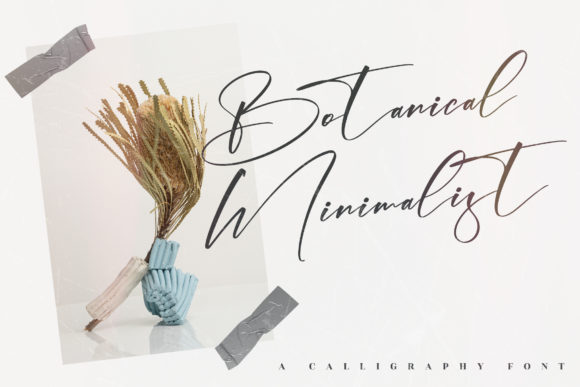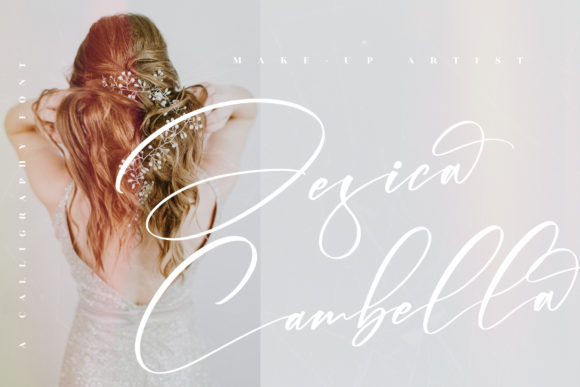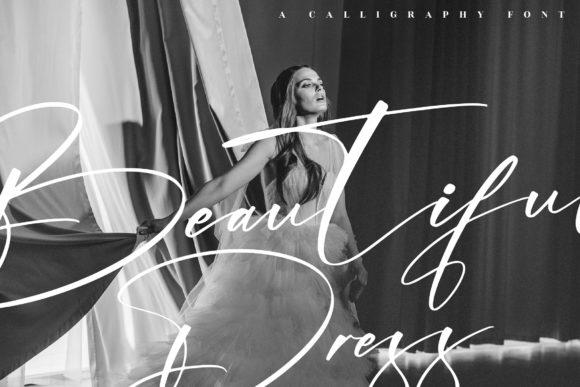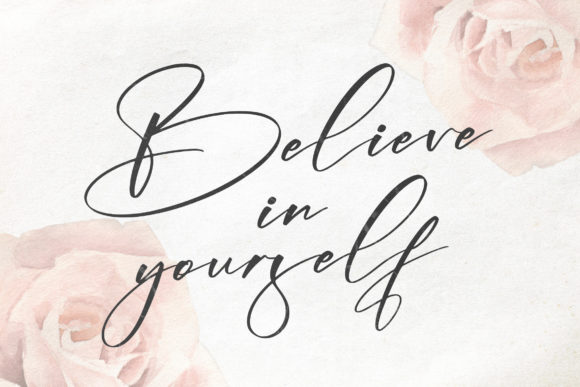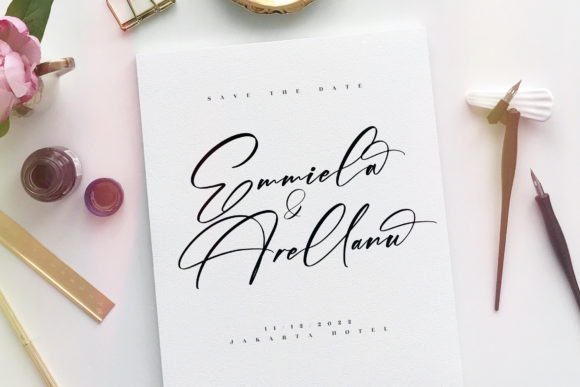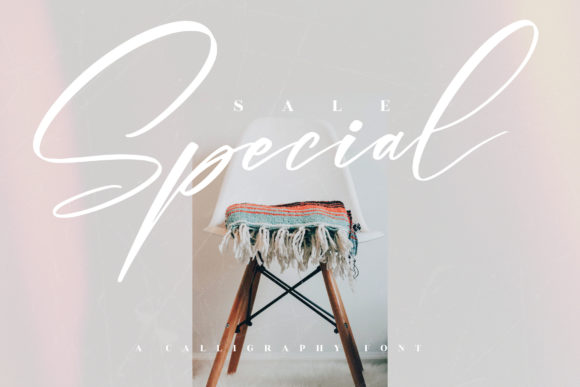
Discover the Delicate Elegance of Bohemia Florale Font
Have you ever found yourself lost in a sea of design ideas, searching for that perfect font to elevate your brand? You know the feeling – it’s like stumbling upon a hidden treasure trove of creativity. For designers, this moment is pure magic, and it’s exactly what the Bohemia Florale Font is designed to inspire.
This exquisite script font is more than just a pretty face – it’s a versatile tool for any branding project. From logos to t-shirt printing, creative products, and beyond, Bohemia Florale Font is the perfect companion for designers seeking to add a touch of delicate elegance to their work. Its value lies in its ability to seamlessly adapt to various contexts, making it an invaluable asset for any creative professional.
Bohemia Florale Font Key Features
- Font Family: A beautiful script font with a floral twist, perfect for adding a touch of elegance and sophistication to your designs.
- Character Count: 250+ glyphs, including uppercase and lowercase letters, numbers, punctuation, and special characters.
- Unique Characteristics: Distinctive floral elements and elegant script strokes, making it perfect for creating unique and eye-catching designs.
Bohemia Florale Font Review
At first glance, Bohemia Florale Font catches the eye with its whimsical charm and elegant touch. ✨ The intricate floral patterns and soft lines evoke a sense of vintage romance, making it perfect for designs that require a touch of sophistication. ✨ The font’s versatility allows it to be used in various contexts, from wedding invitations to editorial content.
- The font’s unique design makes it stand out in crowded digital spaces.
- It’s ideal for brands that want to convey a sense of luxury and refinement.
- The Bohemia Florale Font is suitable for use in print and digital media.
However, there are some limitations to consider. ⚠️ The font’s complexity may make it difficult to read at smaller sizes, which could impact its usability in certain contexts. ⚠️ Additionally, the font’s intricate design may not be suitable for designs that require a clean and minimal aesthetic.
In conclusion, the Bohemia Florale Font is a beautiful and elegant font that can add a touch of sophistication to any design. While it may have some limitations, its unique design and versatility make it a great choice for designers looking to create memorable and impactful designs.
For optimal results, use Bohemia Florale Font in conjunction with floral or vintage-themed designs.
- Floral-themed posters and prints
- Vintage-inspired packaging and labels